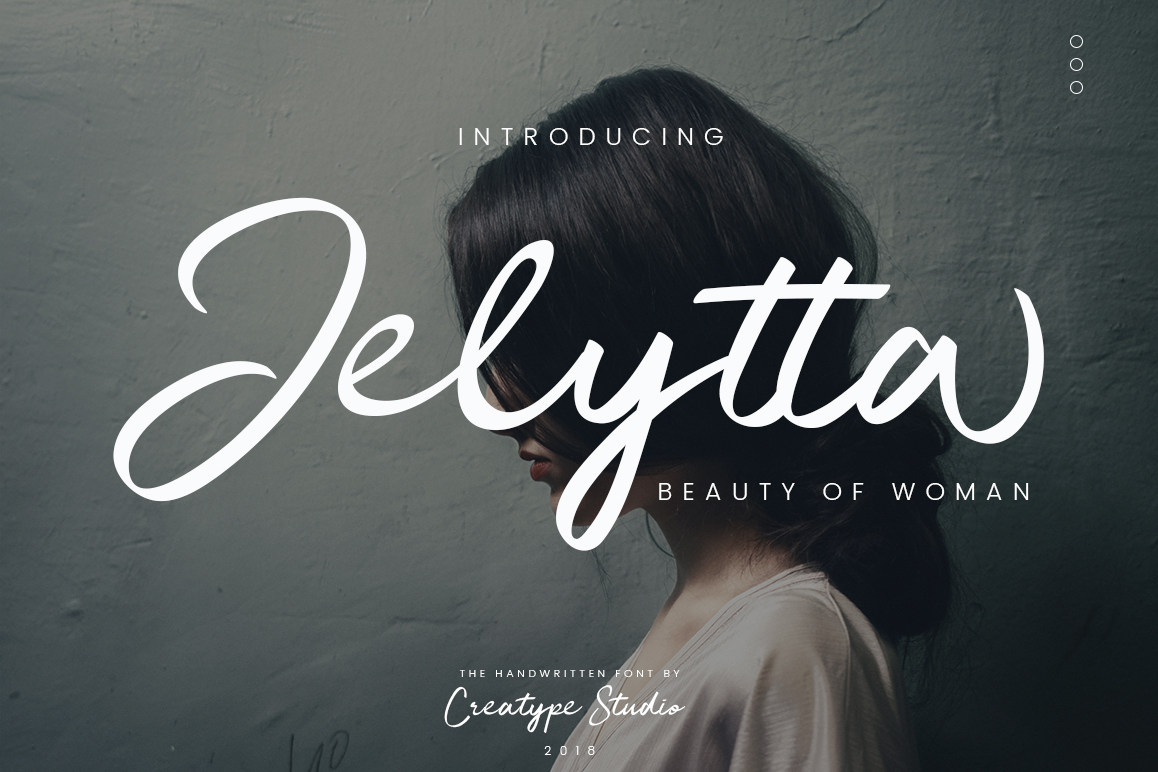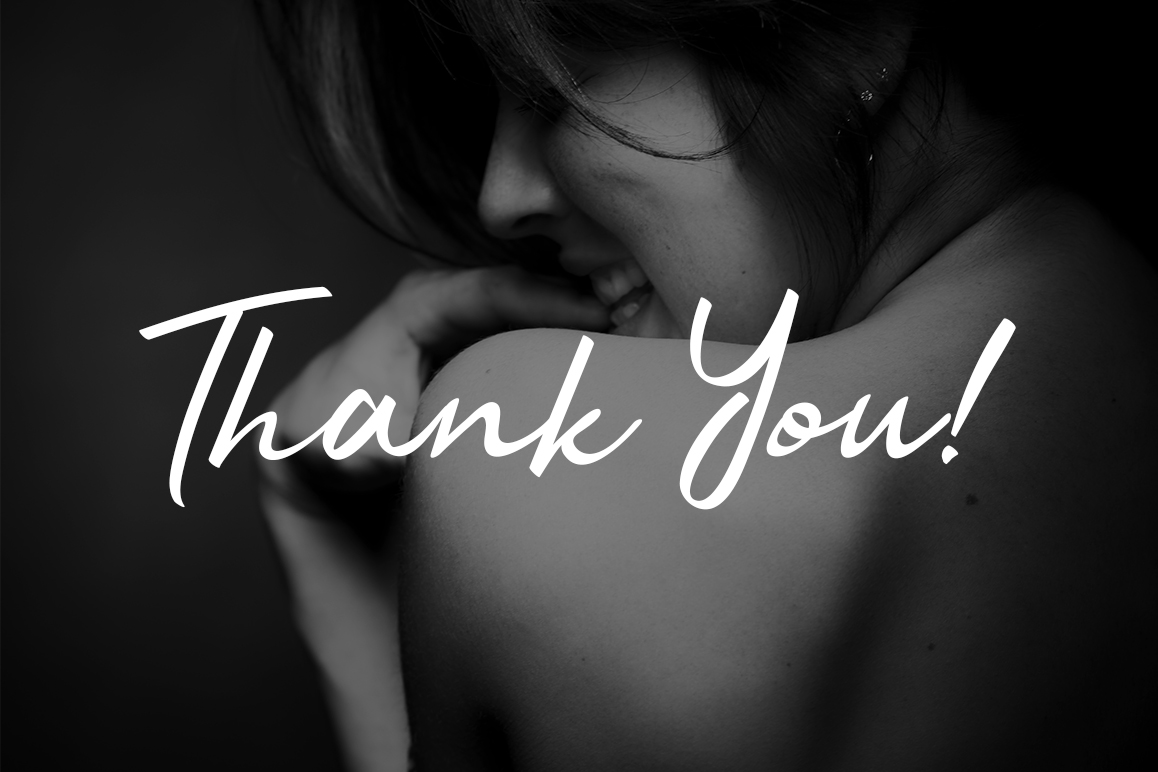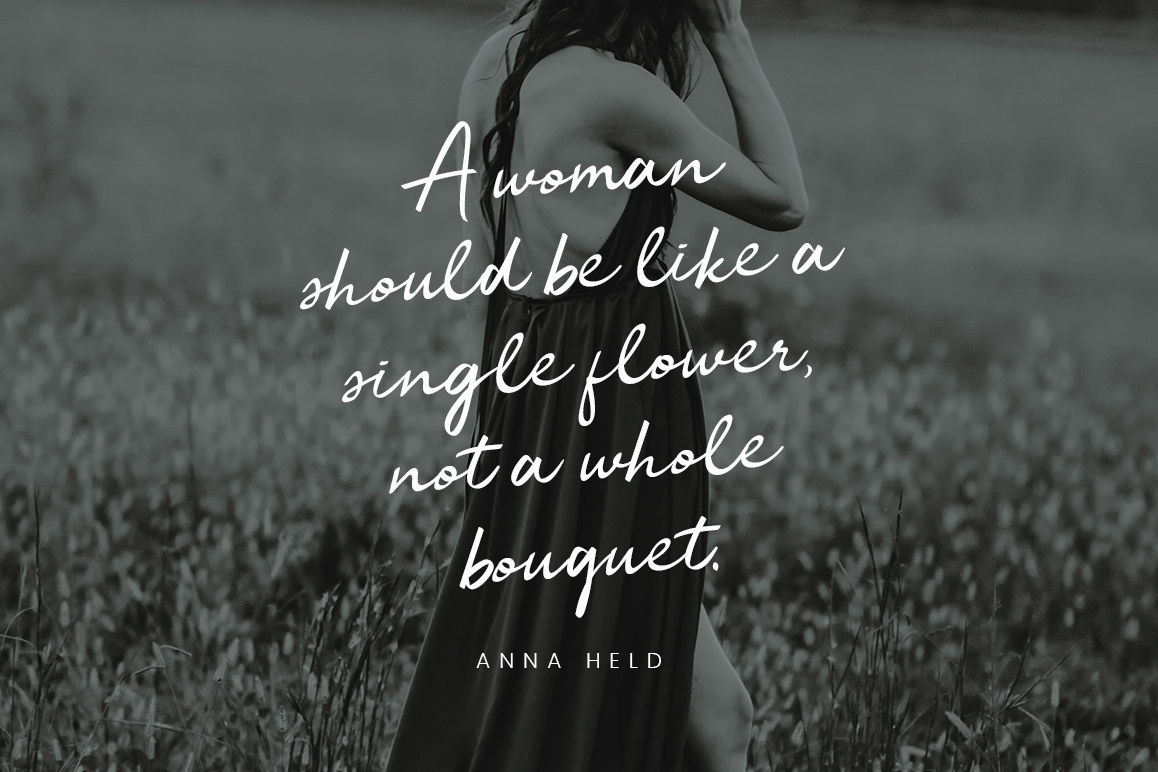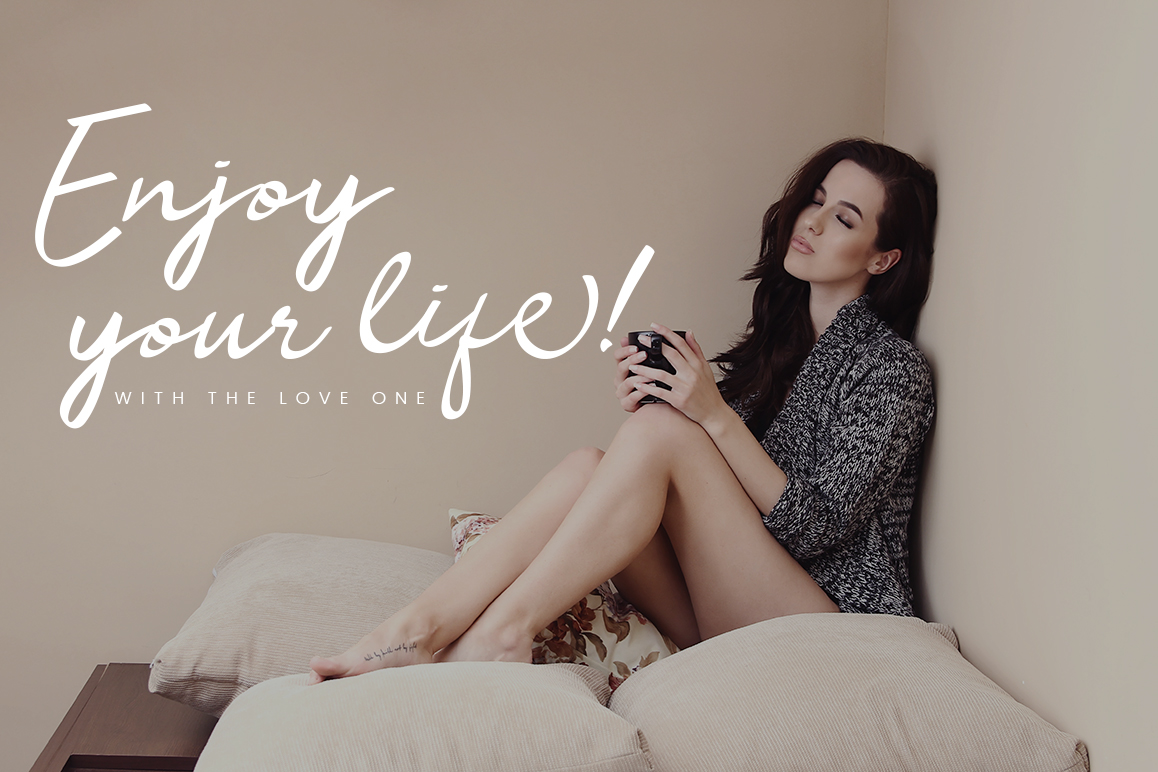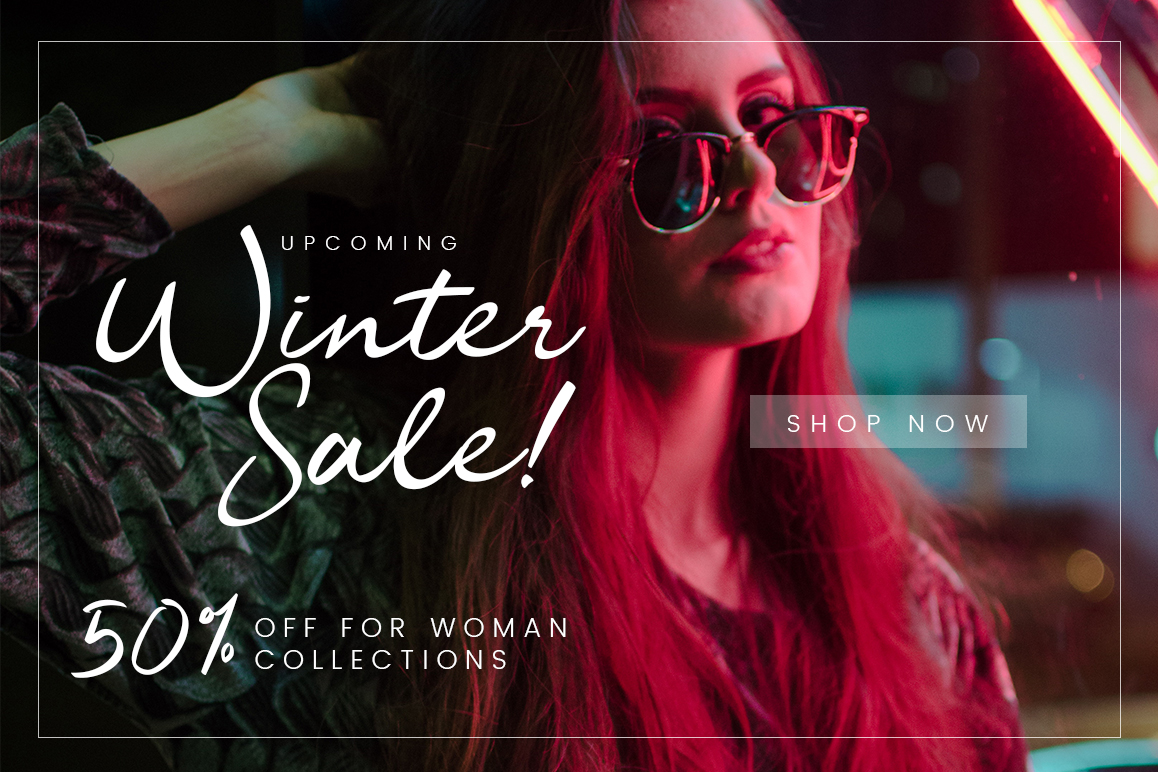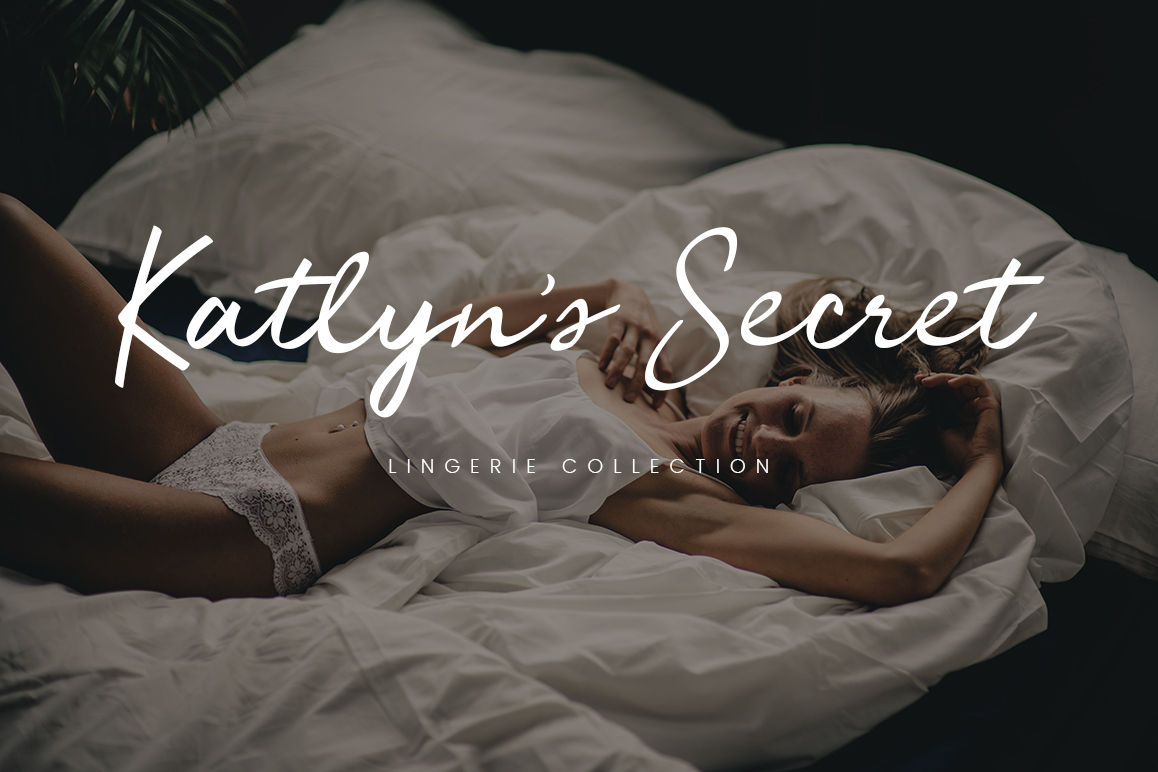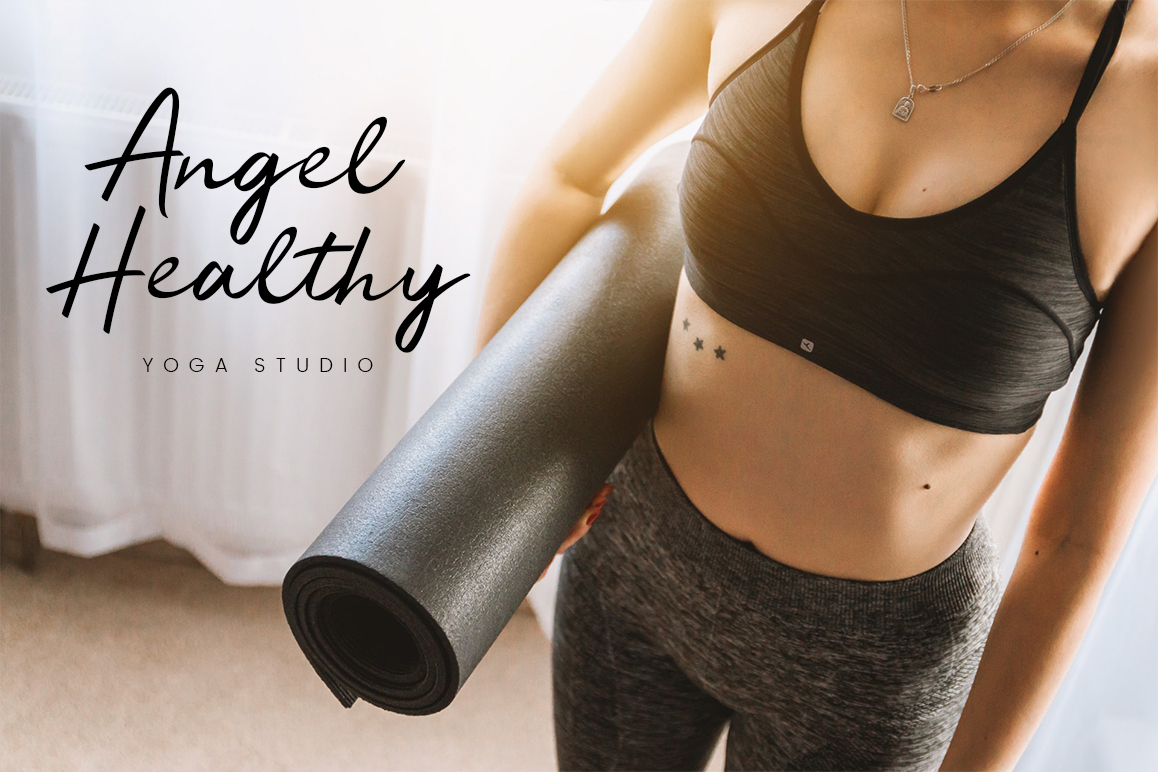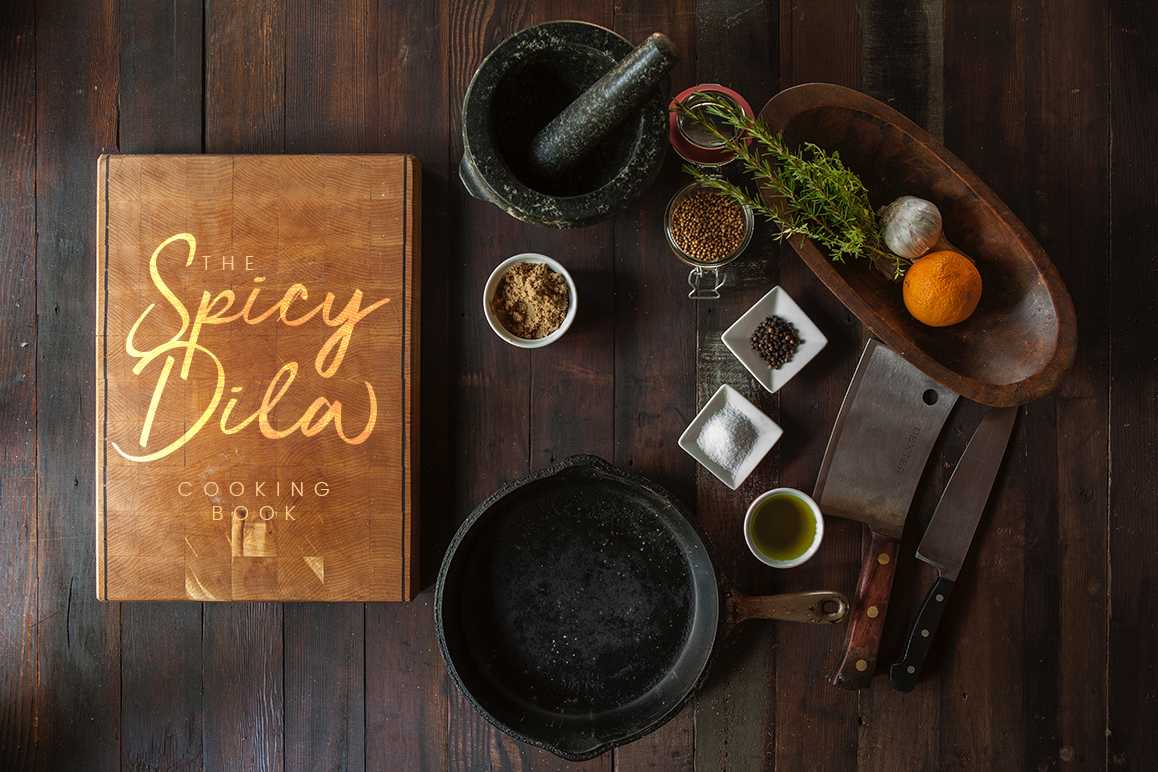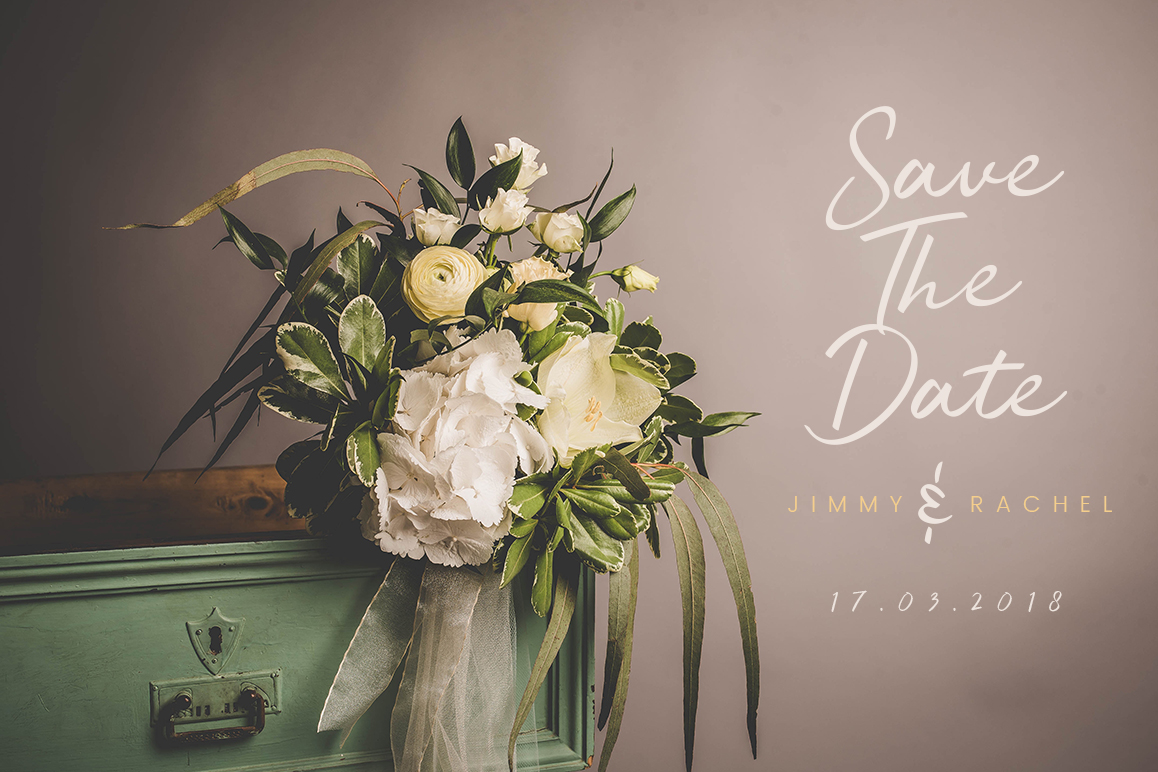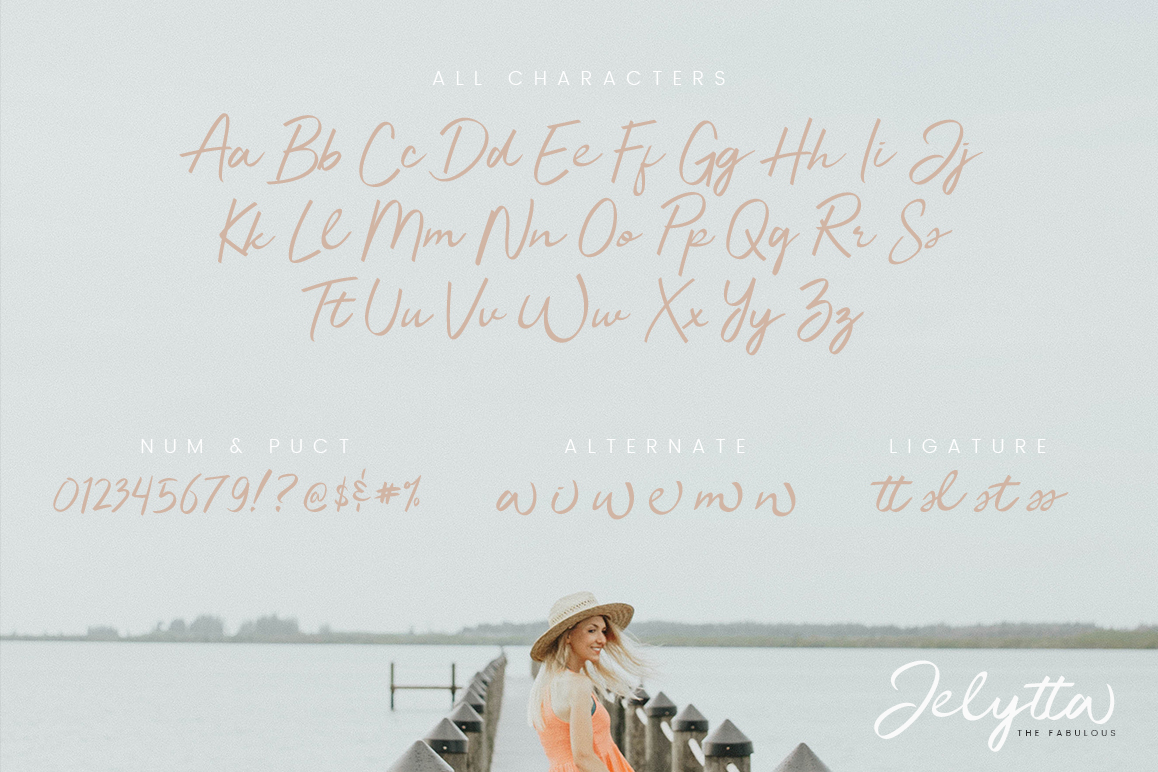
Jelytta Font
About Jelytta Font
Jelytta means the beauty of woman. This font was inspired by the beauty of women with all their softness, making this font look sophisticated, classy, and elegant.